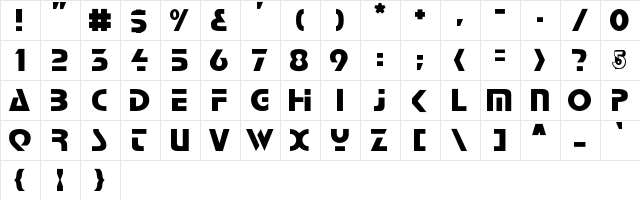
Babylon Regular
| Copyright | This font is based on the background font used in the television show Babylon 5. Pretty to look at, but kinda hard to read if you're trying to find the local escape pod entrance in a panic. :* |
Design Context for Babylon Typeface
Babylon is a composed and adaptable typeface that performs quietly and consistently across a wide range of design contexts.